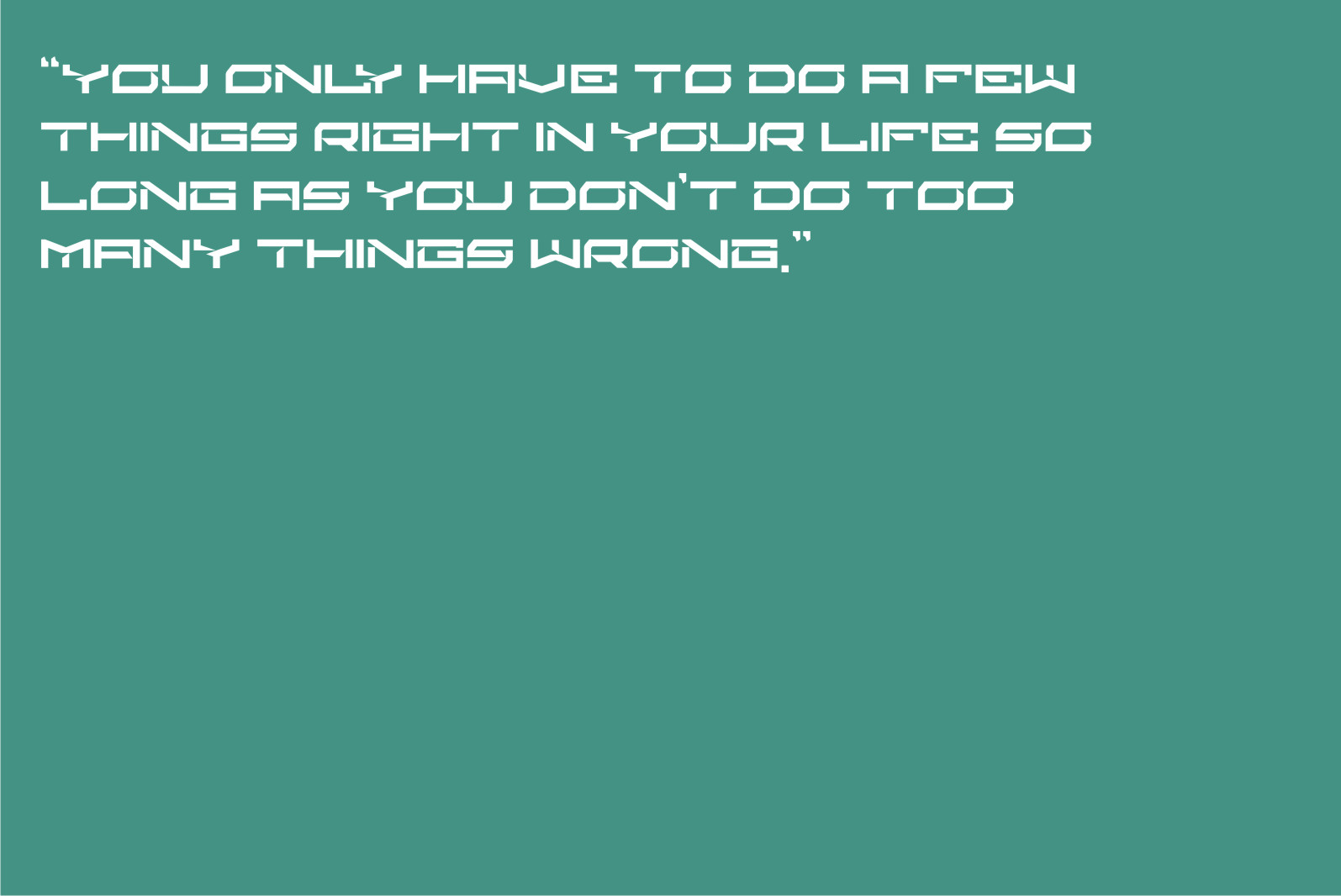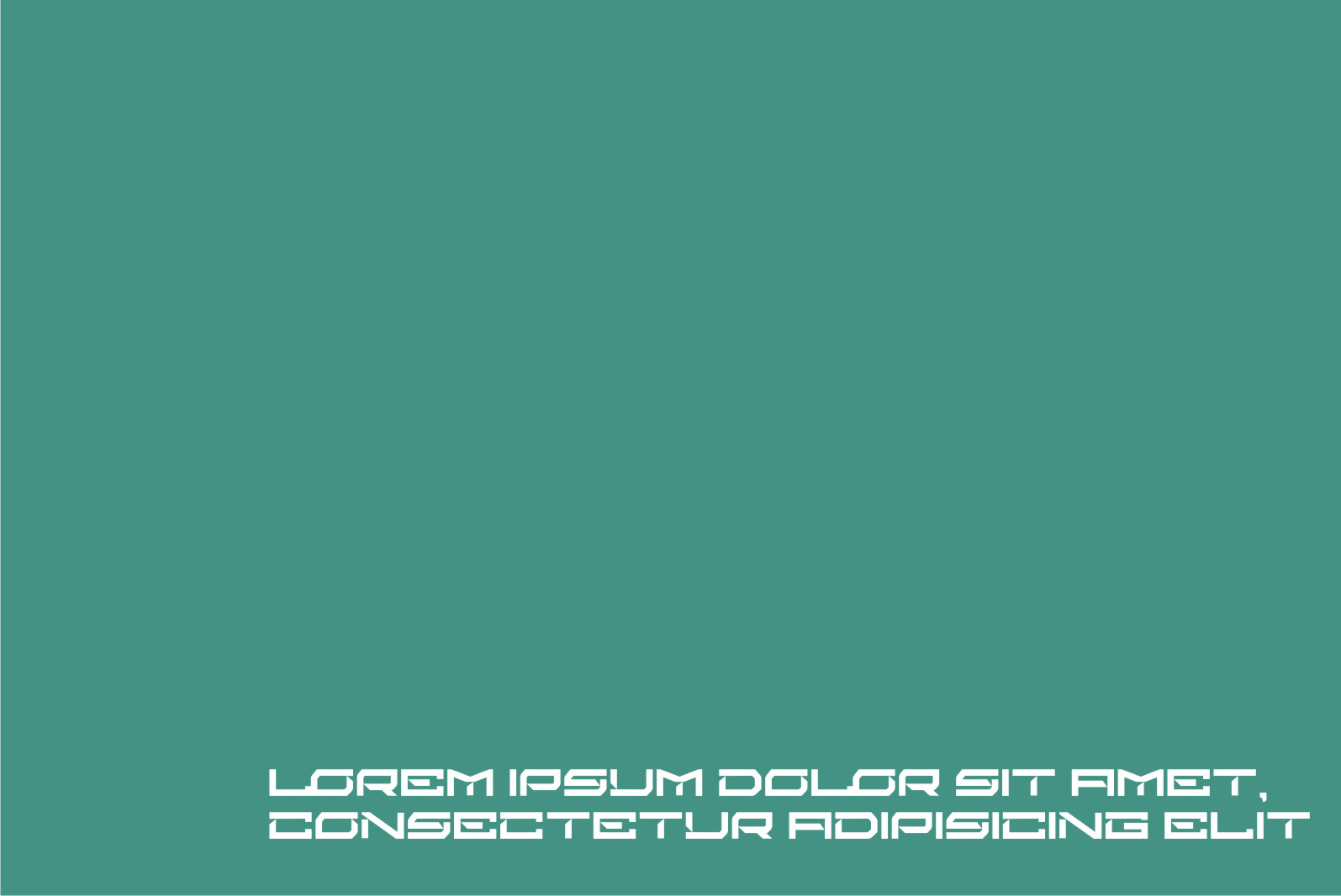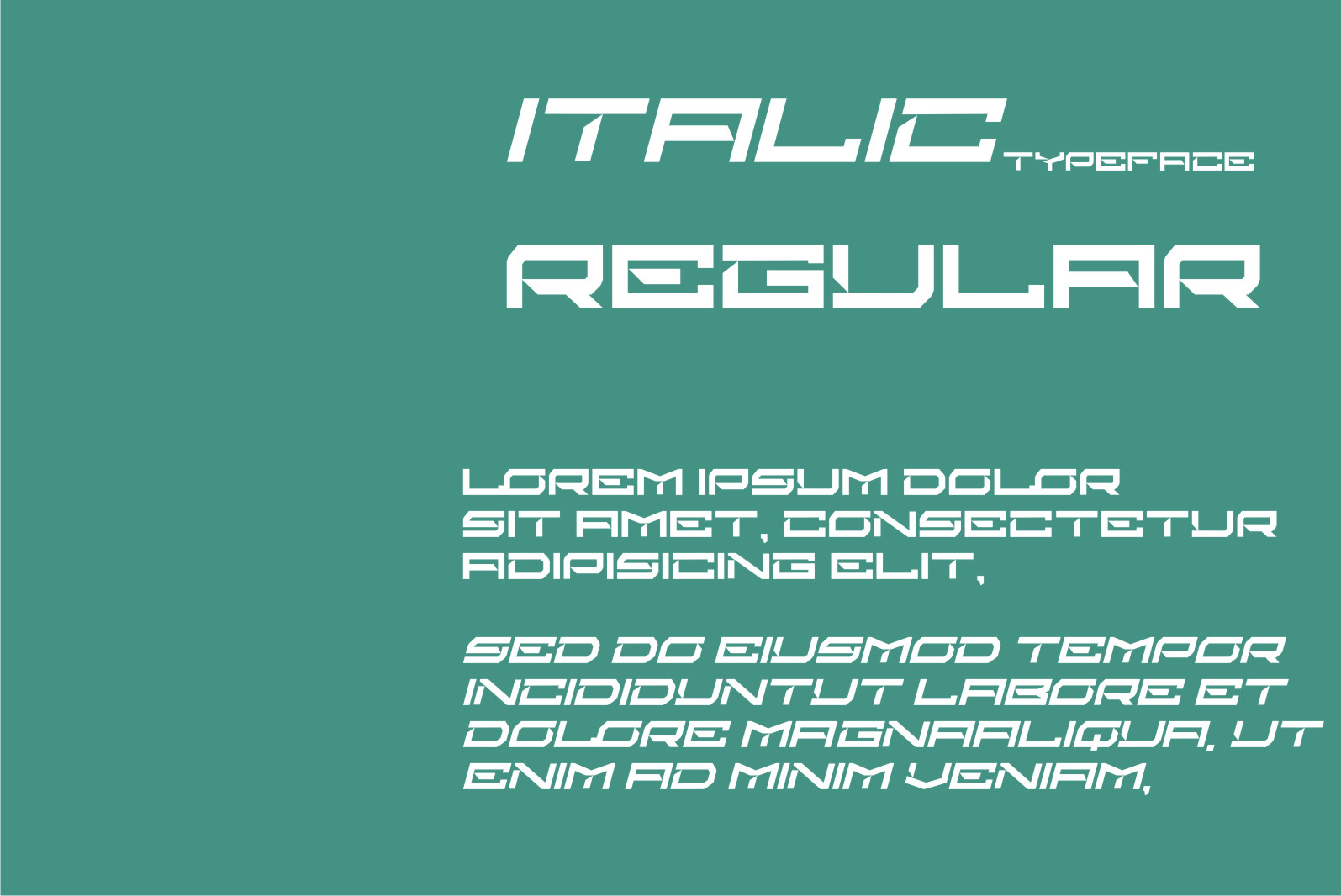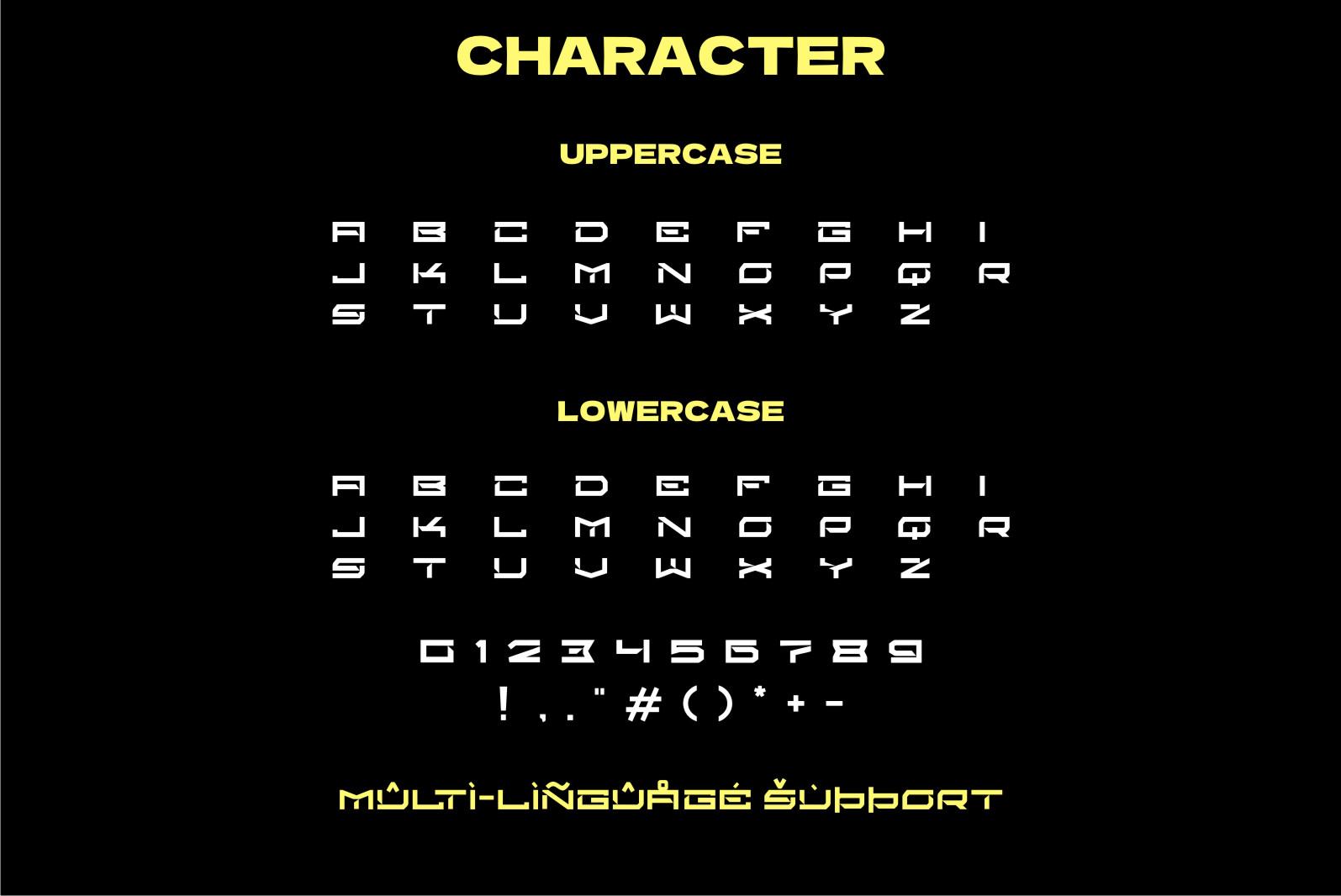
Kencer Font
Evlo Font is a futuristic and robotic-styled display font. This font is ideal for writing web designs, business cards, or pretty much anything else that requires a futuristic touch.